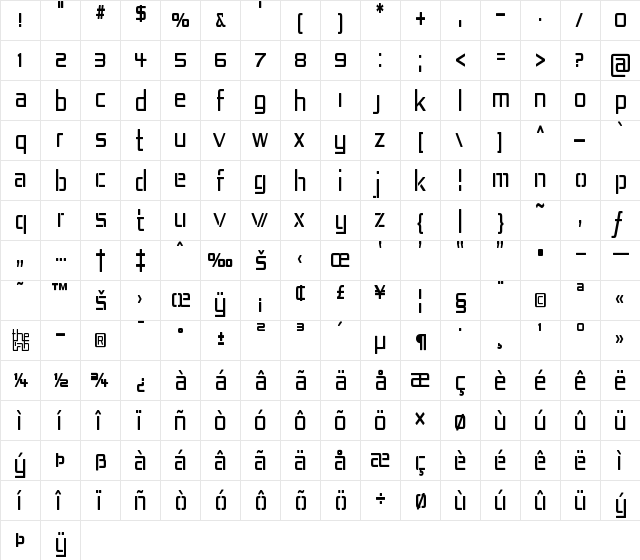
Republika IV Cnd Regular
| Designer | Apostrophe |
Design Context for Republika IV Cnd Typeface
Republika IV Cnd offers clean, dependable letterforms without strong stylistic allegiance, making it a practical choice for designers who need flexibility.